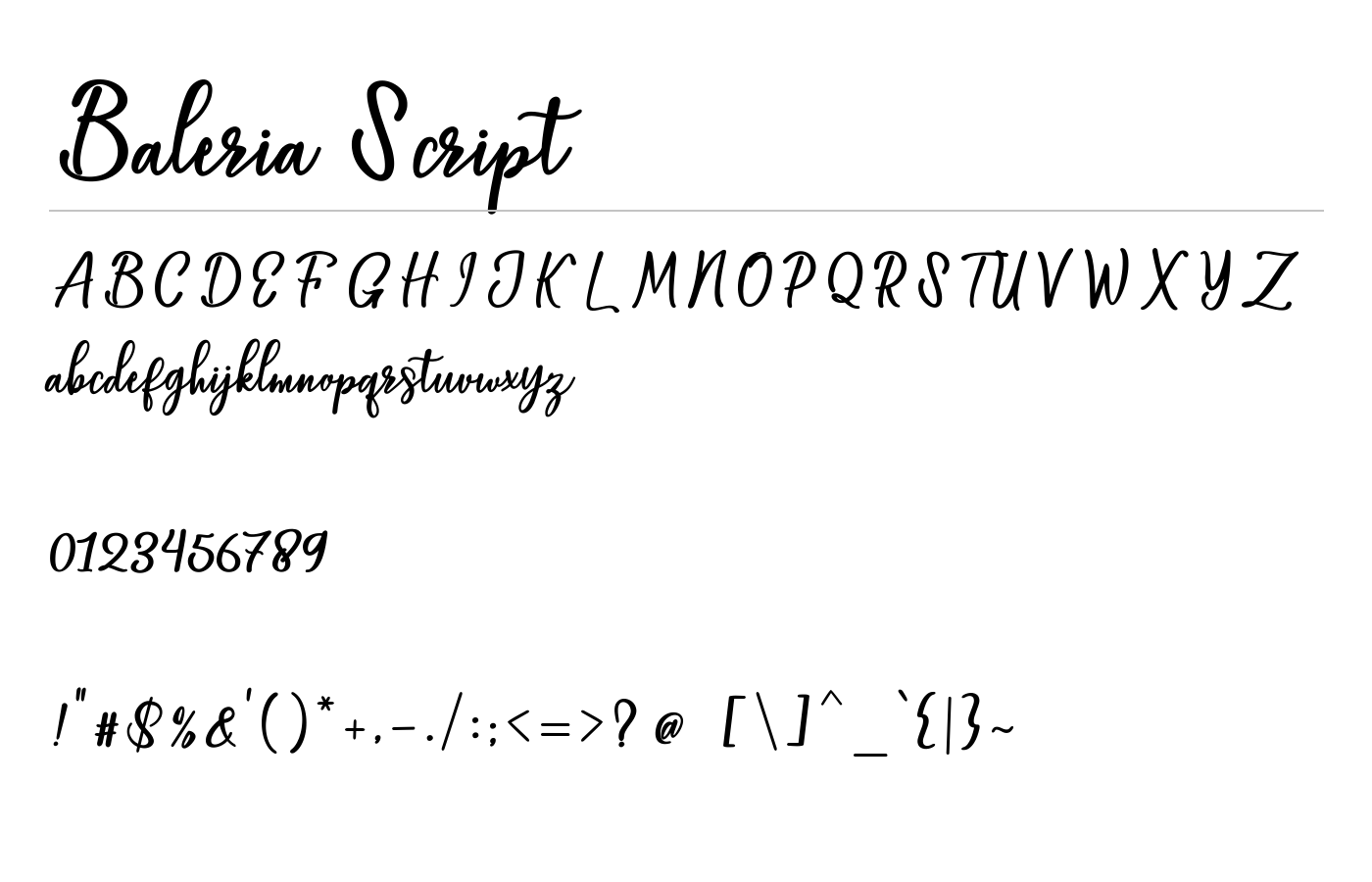
Baleria Script is a charming and elegant handwritten font featuring smooth, flowing strokes with moderate contrast and slender letterforms. Its stylish cursive characters and balanced spacing give it a friendly yet refined personality, making it ideal for invitations, branding, and creative projects that seek a personal, sophisticated touch. This font works beautifully in logos, packaging, and headlines where a graceful and approachable script style is desired.
Baleria Script Font
About Baleria Script Font